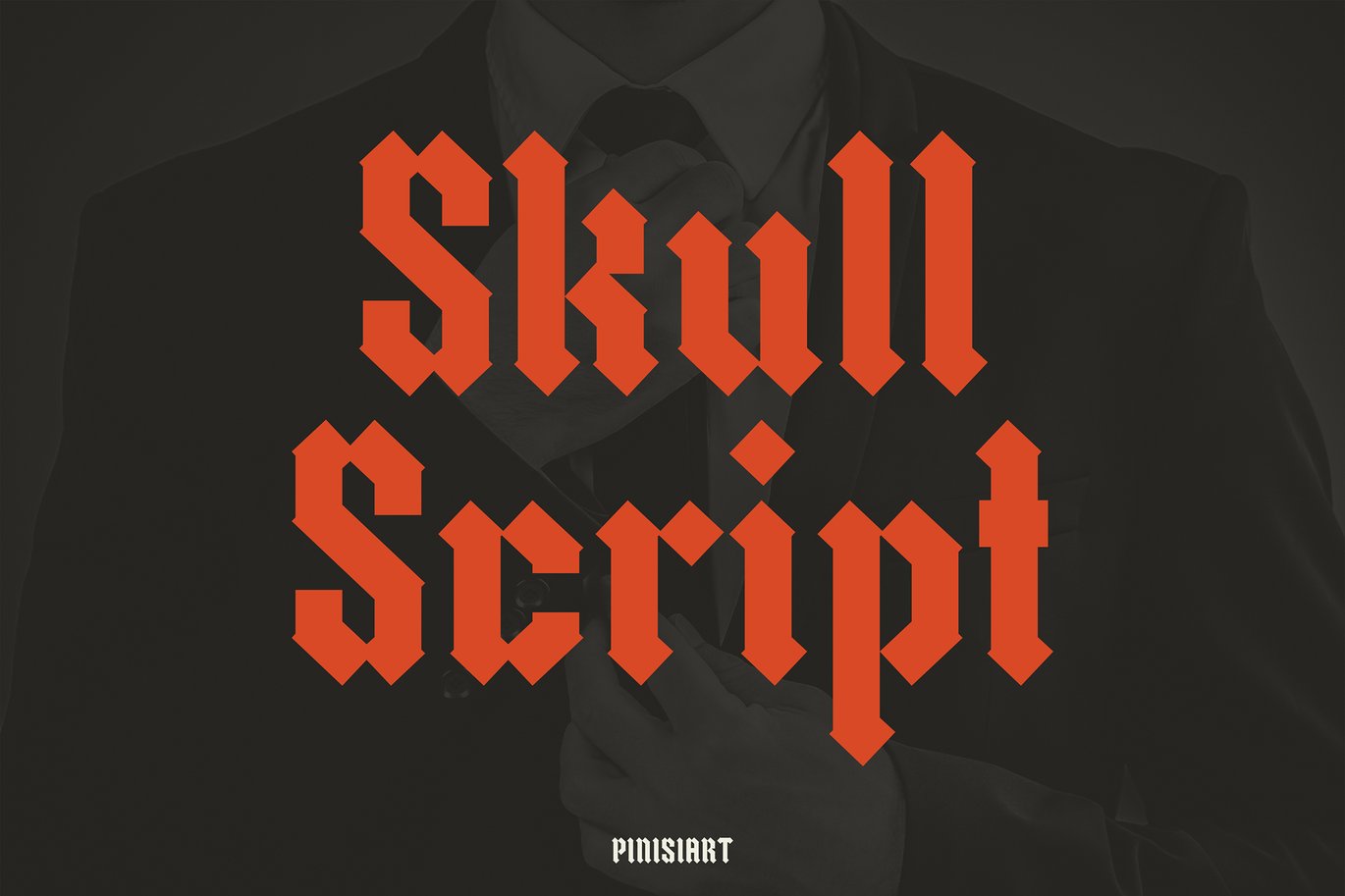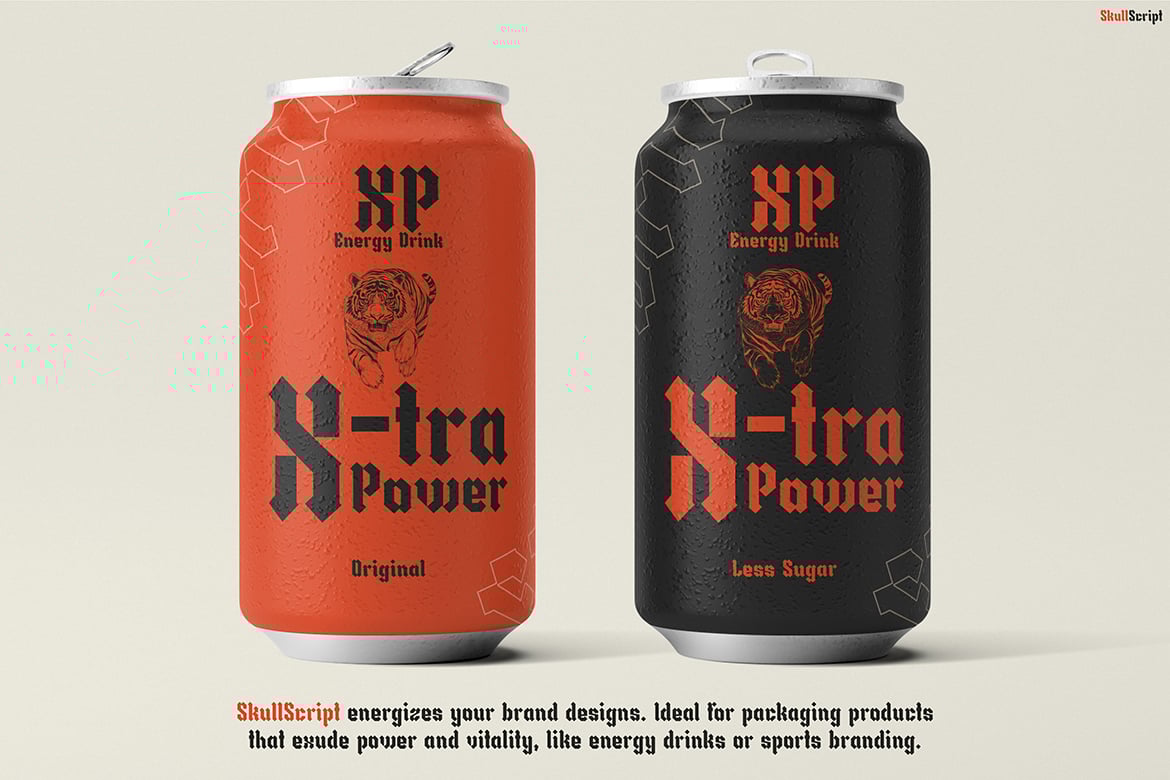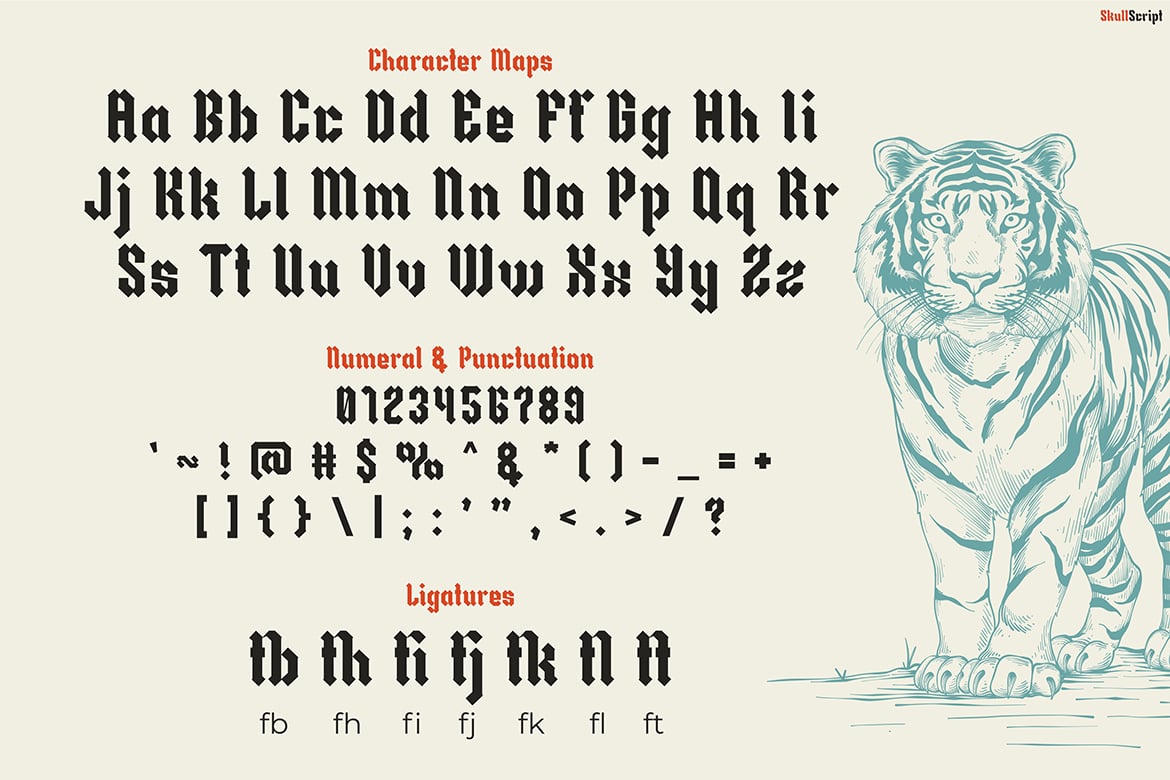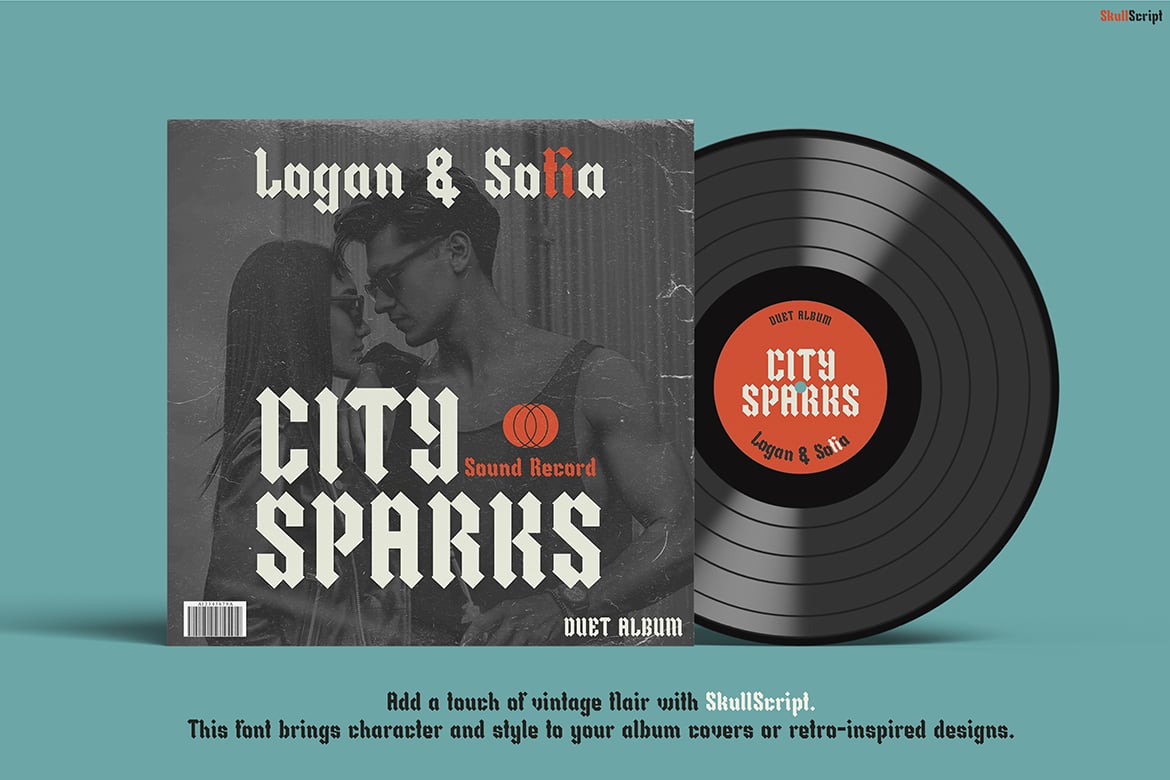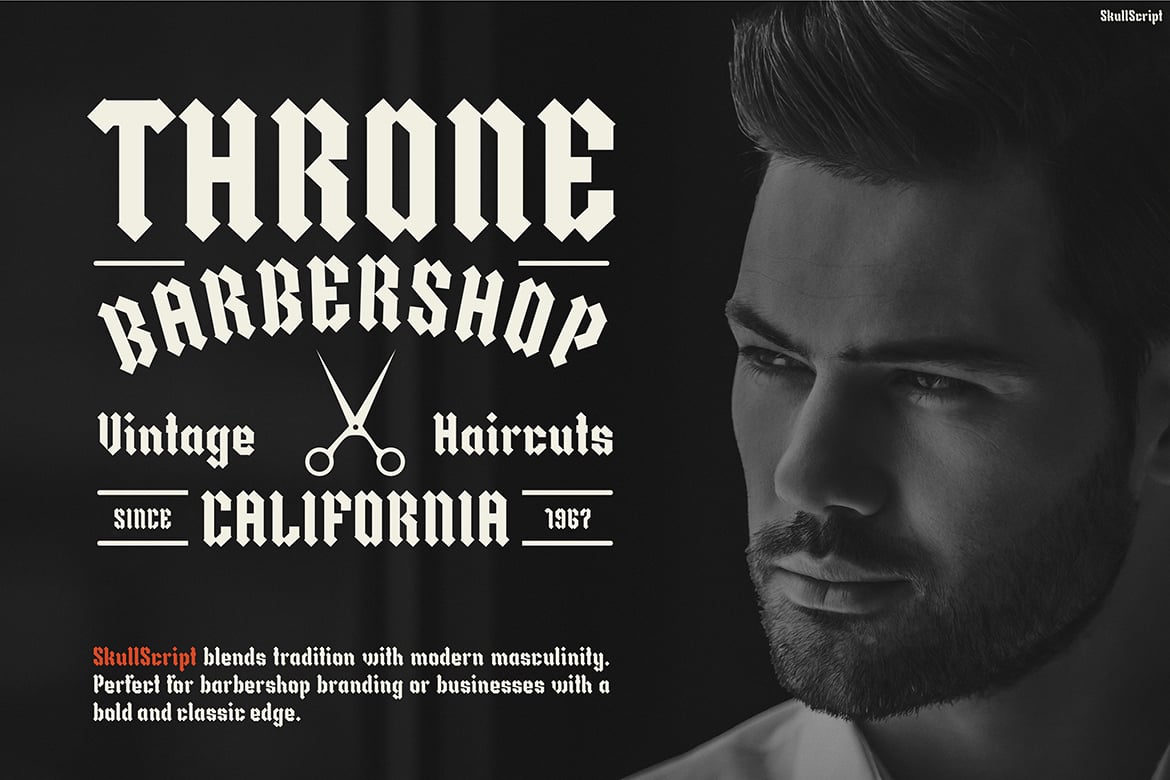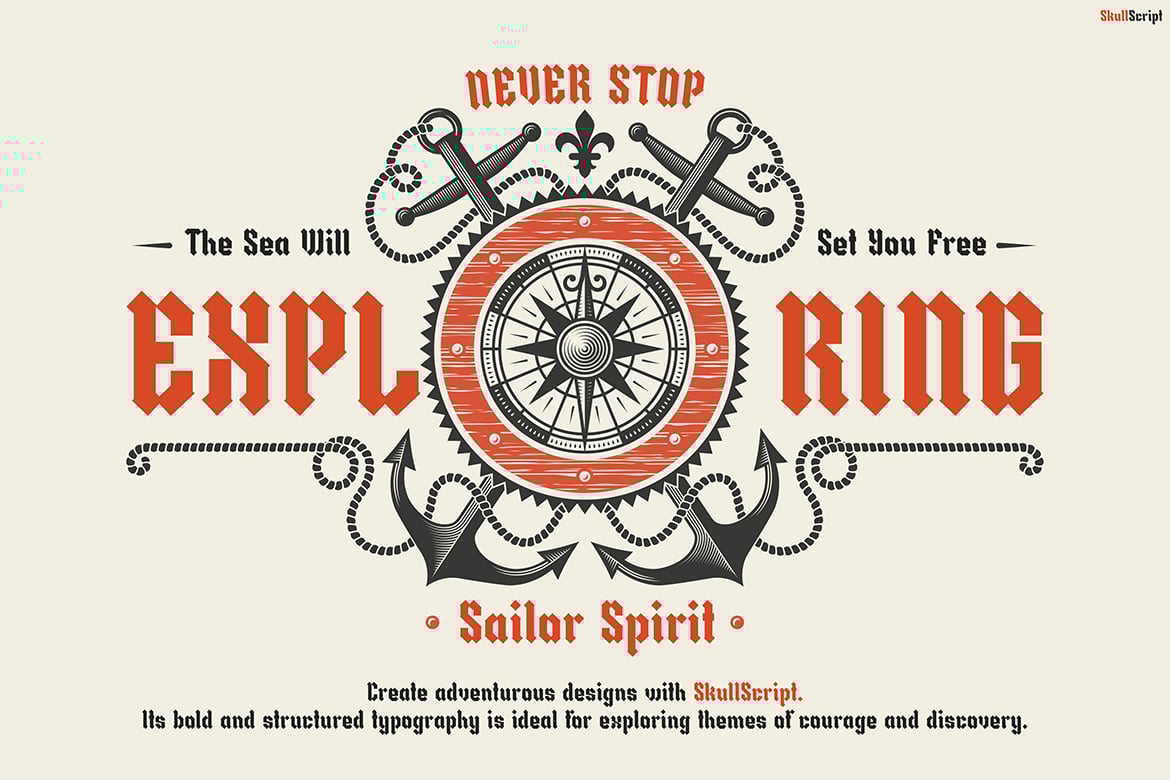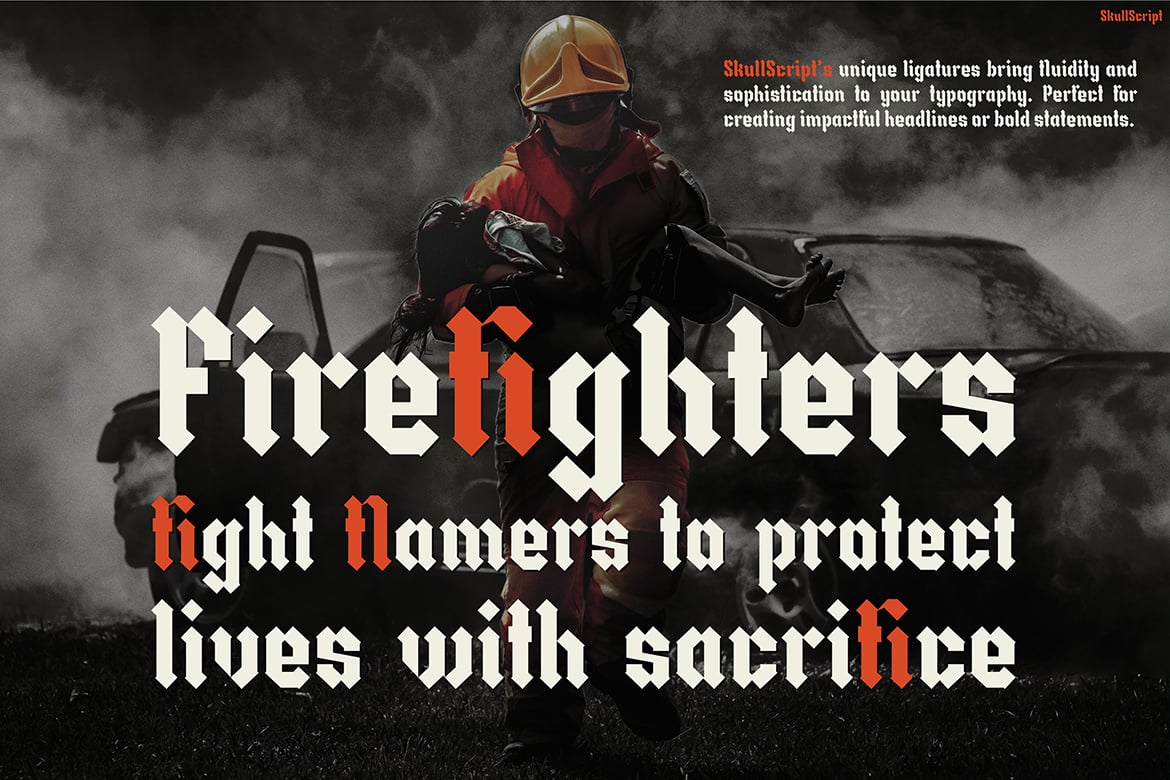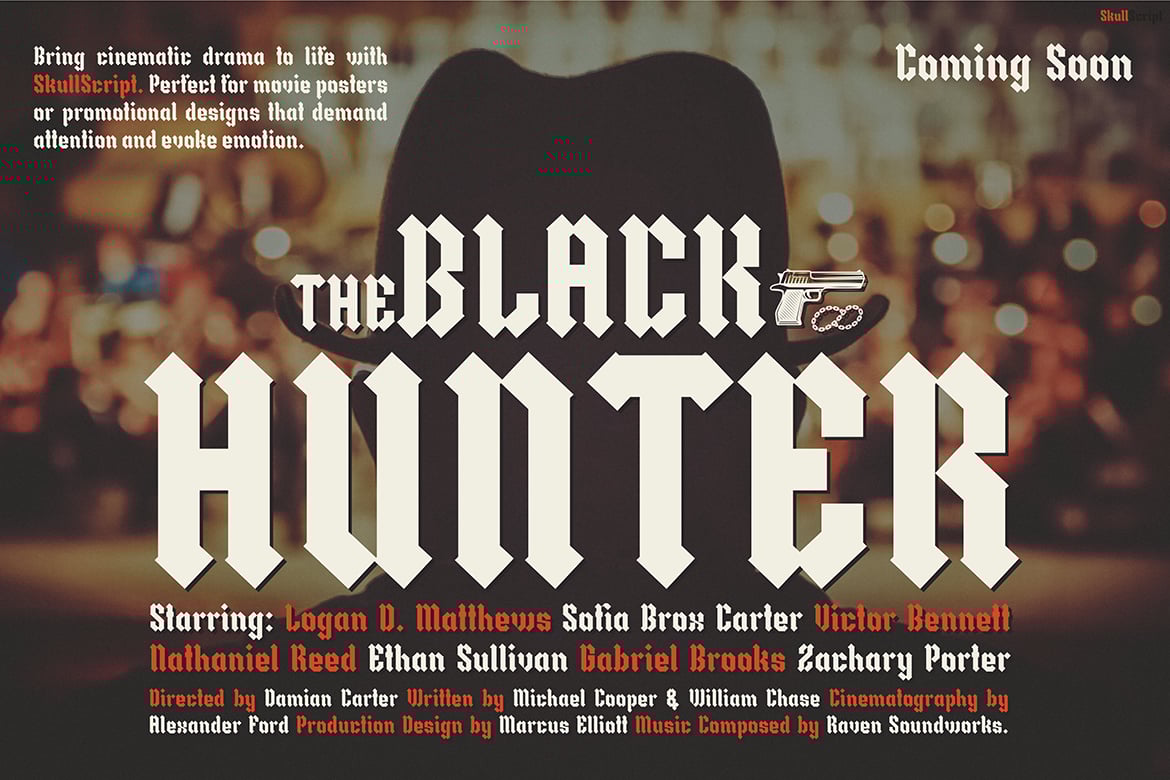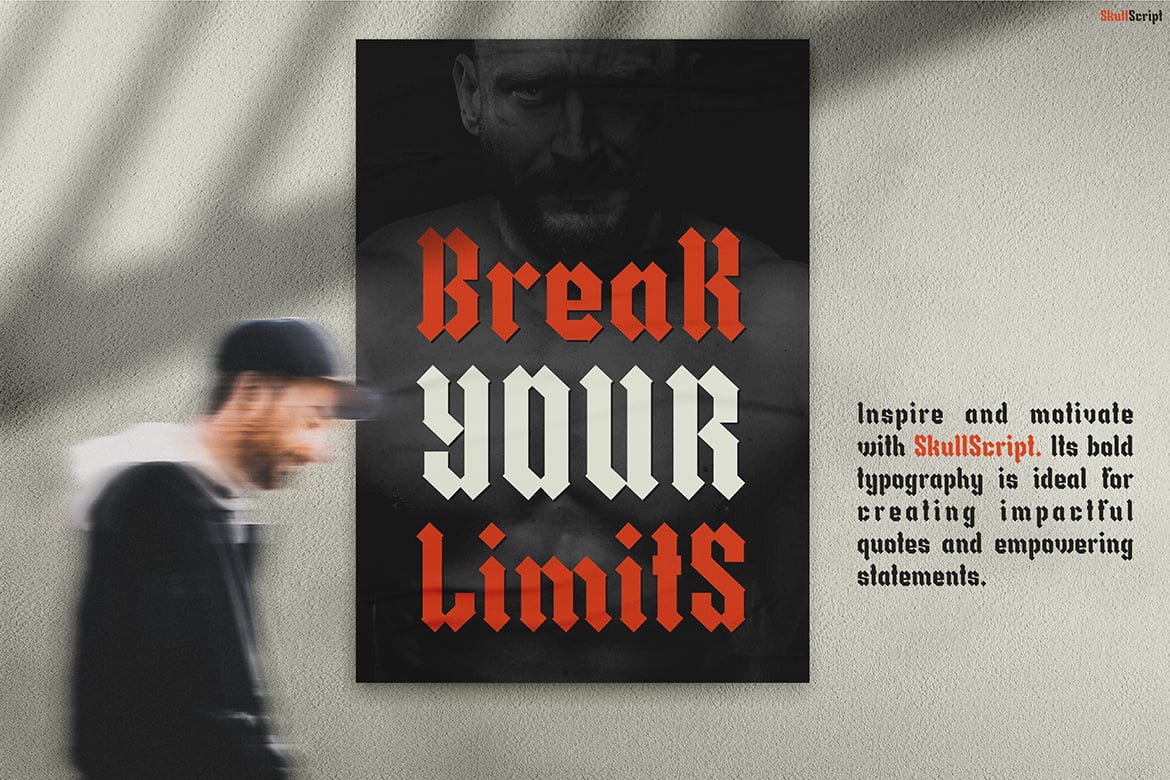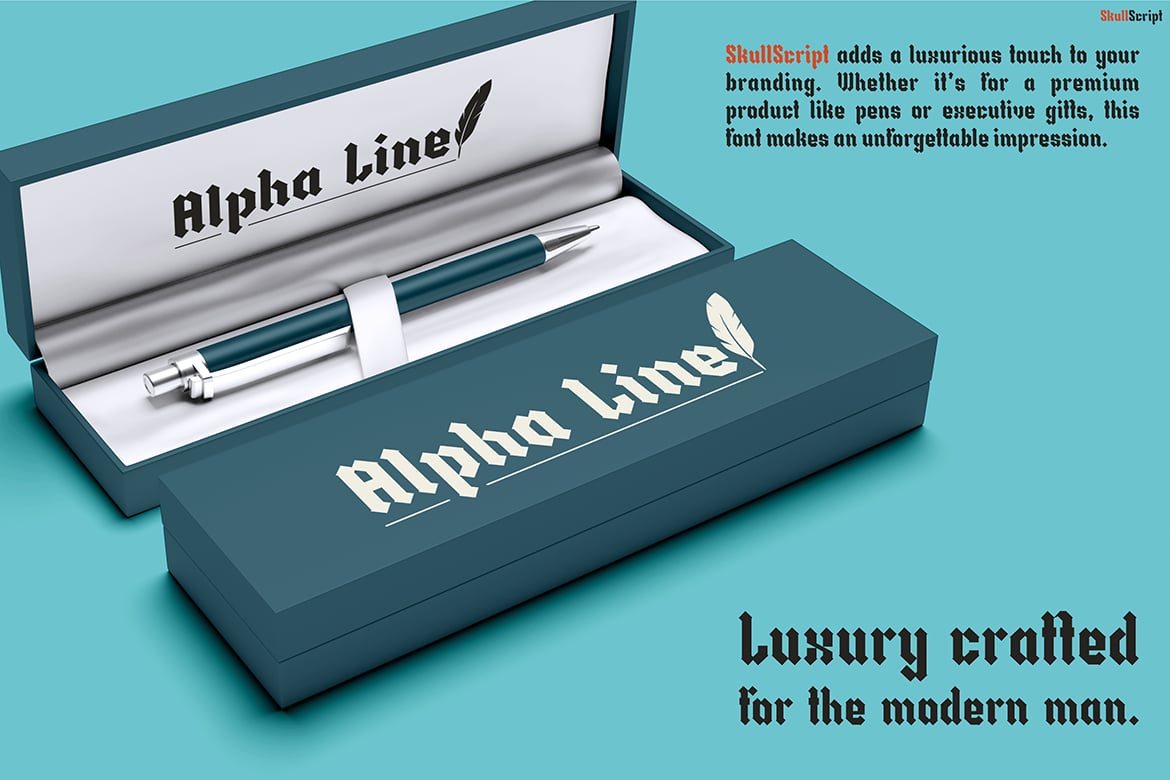
Blackletter Font – Skullscript
Skull Script – A Bold Blackletter Font with a Modern Edge
Skull Script is a fierce blackletter font that blends classic gothic elegance with a bold, rebellious twist. Designed for those who want to make a statement, this font features sharp, angular strokes, dramatic contrasts, and a raw, vintage aesthetic. Whether you’re creating album covers, tattoo-inspired artwork, or branding with an edge, Skull Script delivers an unmistakable impact.
Perfect for rock music posters, heavy metal merchandise, vintage bar signage, biker club branding, tattoo-inspired logos, gothic apparel designs, rebellious streetwear branding, high-contrast editorial layouts, craft beer labels, festival flyers, book covers for dark fantasy genres, occult-themed projects, motorcycle culture visuals, horror-themed marketing, and retro-inspired packaging.